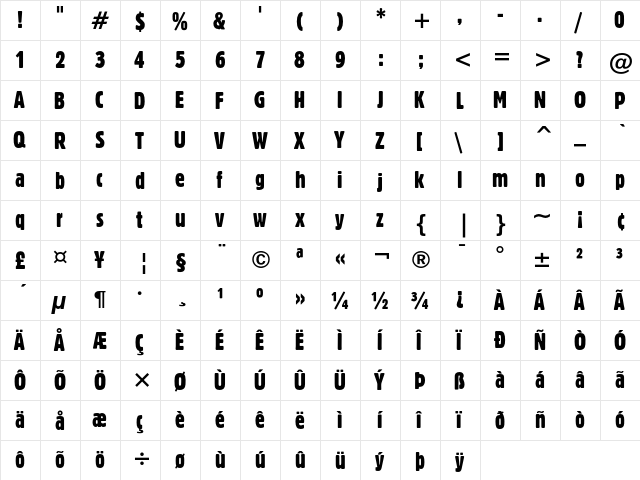
Gothic 821 Condensed
Design Context for Gothic 821 Typeface
Gothic 821 has the quiet confidence of well-executed sans-serif typography: versatile, unobtrusive, and dependable at any size. The condensed width makes it efficient for tight spaces without sacrificing legibility.
Font Pairing: Works well alongside a characterful serif or display font that can carry the expressive load while Gothic 821 handles the functional copy.
Pro Tip: Try Gothic 821 in all-caps with moderate tracking for navigation and label copy — it performs well in systematic UI contexts.